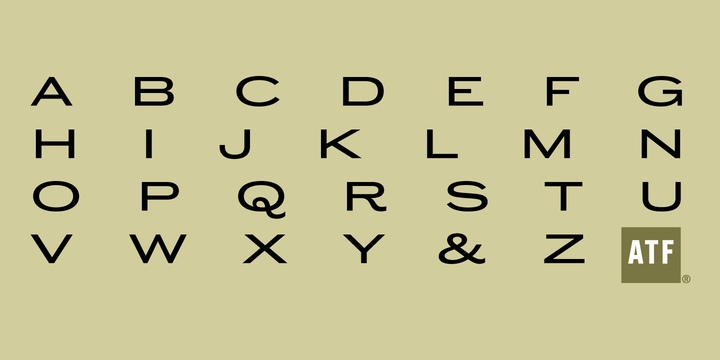
ATF Wedding Gothic Font
The ATF Wedding Gothic Font is a stunning sans-serif typeface that combines historic elegance with a clean, modern aesthetic. Originally designed by American Type Founders (ATF) in 1901 and later revived and expanded, this font is a superb choice for a variety of sophisticated design projects. Its refined and stylish letterforms are perfect for wedding invitations, high-end stationery, luxury brand logos, and elegant editorial layouts. The font's classic yet contemporary feel also makes it a great fit for art gallery websites, event branding, and any project that requires a sense of timeless grace.
What makes the ATF Wedding Gothic Font so exciting is its rich history and modern revival. It is a typeface that carries the legacy of classic American typography while being meticulously updated for contemporary use. The font's dignified and structured letterforms give it a strong visual presence, ensuring that your message is delivered with authority and a touch of vintage charm. It’s a powerful tool for designers who want to create a sense of heritage and quality in their work, making it a unique and memorable choice.
The ATF Wedding Gothic font family is exceptionally robust, offering an extensive range of weights and widths to provide maximum design flexibility. This comprehensive family includes weights from thin to black, as well as wide variations, allowing you to create a dynamic and cohesive visual hierarchy. The font includes a full set of uppercase letters, numbers, and punctuation, with expanded character sets and typographic features made possible by digital technology.